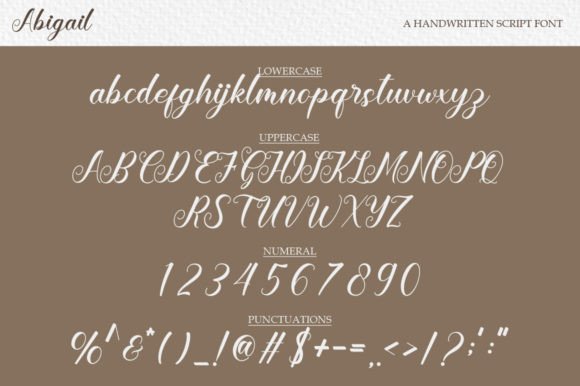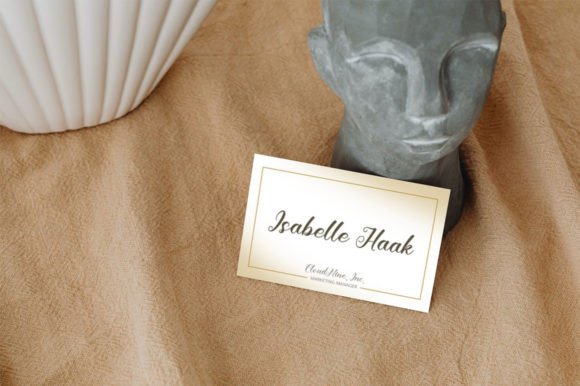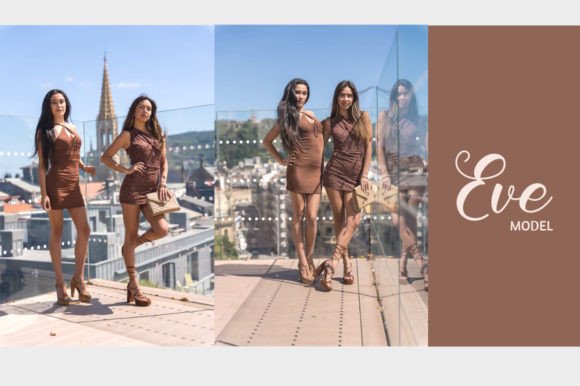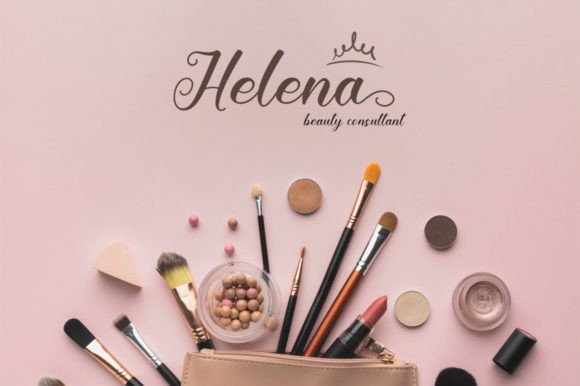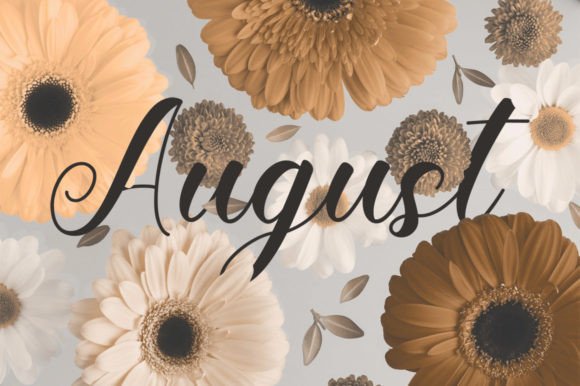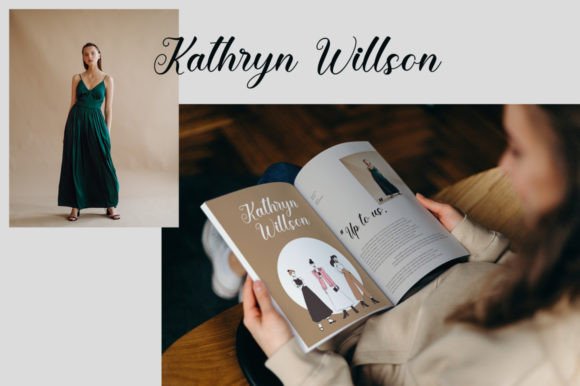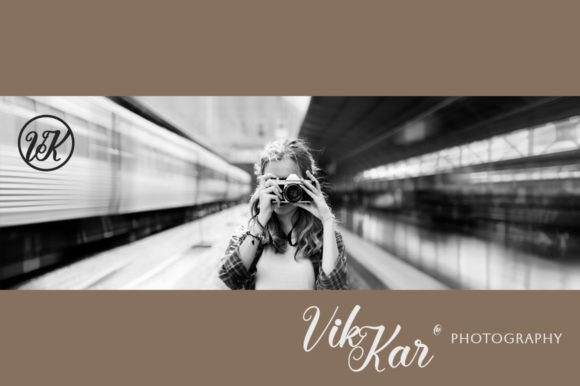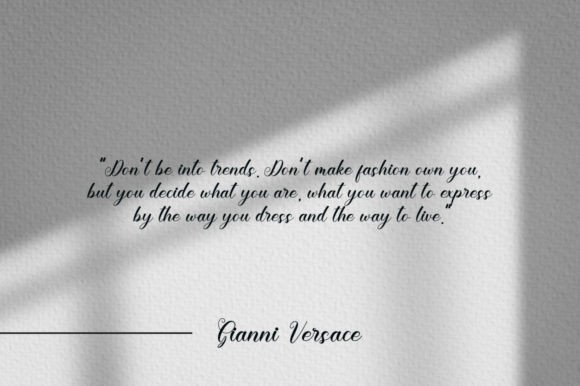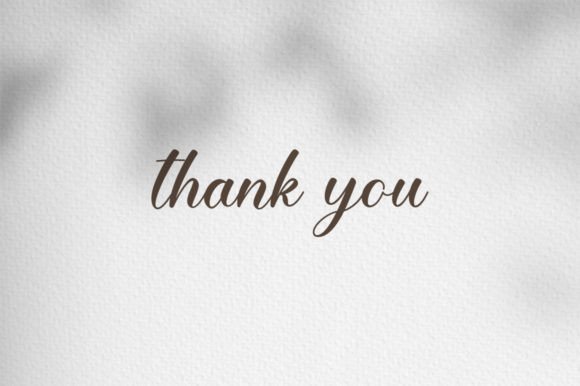
Abigail Font
About Abigail Font
“Abigail” is a lovely and timeless handwritten font that exudes elegance and charm. This font is an excellent choice for creating eye-catching logos, branding materials, and quotes. With its timeless appeal, “Abigail” can add a touch of sophistication to your design projects.
The font’s handwritten style is characterized by its graceful and well-balanced characters. It conveys a sense of refinement and timelessness, making it ideal for projects that aim to evoke a classic and elegant feel. “Abigail” enhances the visual appeal of your designs, making them both captivating and memorable.
In the world of design, fonts are instrumental in setting the mood and visual identity of a project. “Abigail” excels in these aspects by offering a handwritten font that is both timeless and visually appealing. Its aesthetics infuse your designs with a sense of elegance and charm, making them stand out and leave a lasting impression.
In summary, “Abigail” is more than just a font; it’s a lovely and versatile design tool that can elevate your creative projects with its graceful and timeless style. Whether you’re working on logos, branding, quotes, or any design that requires a touch of sophistication, “Abigail” is the font that can help you craft designs that are truly elegant and captivating.